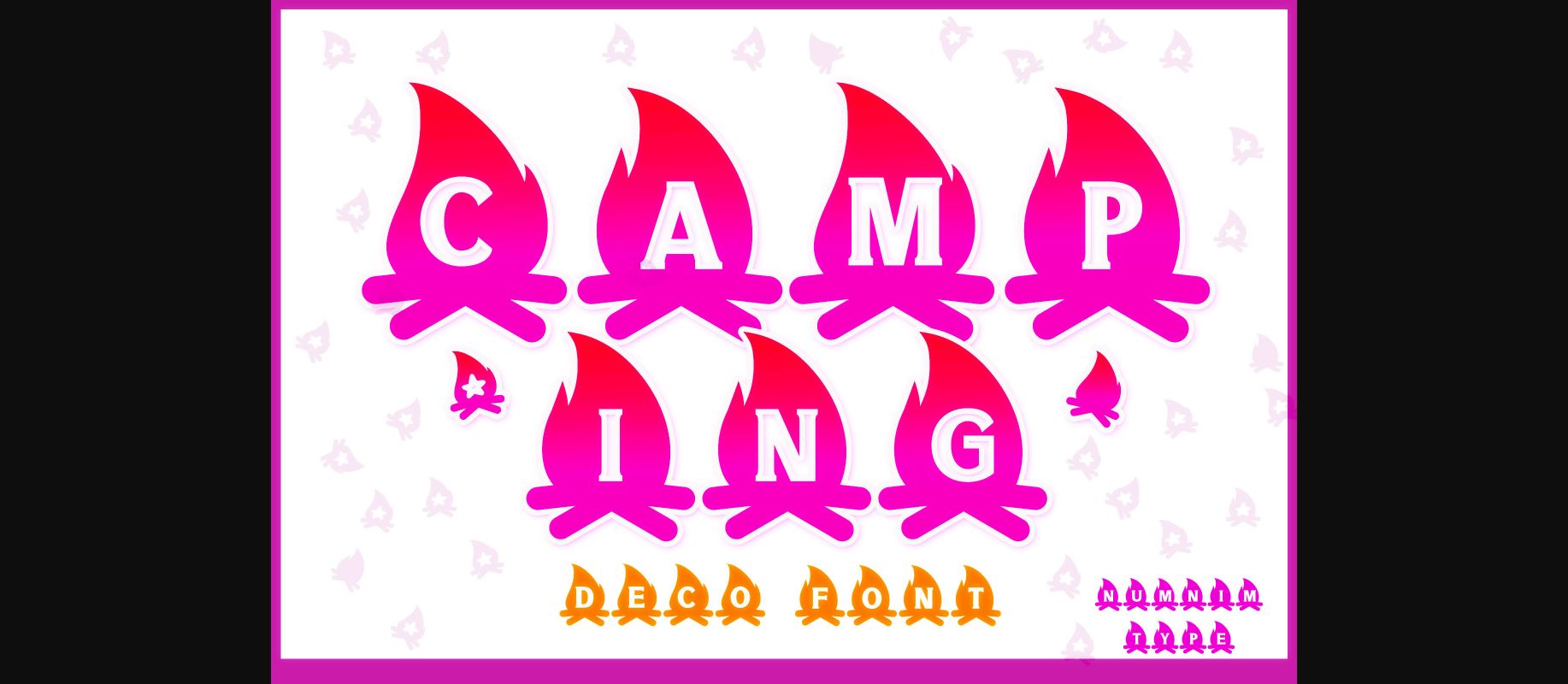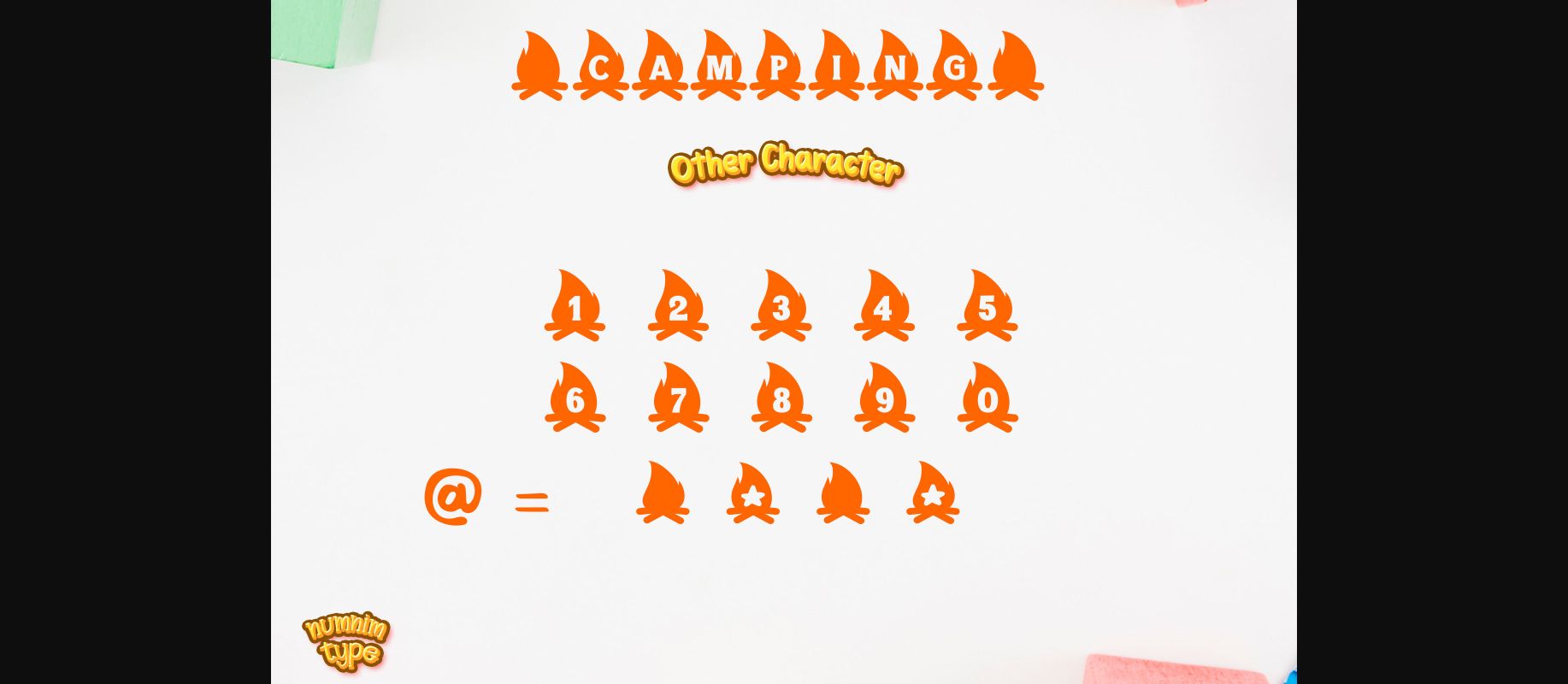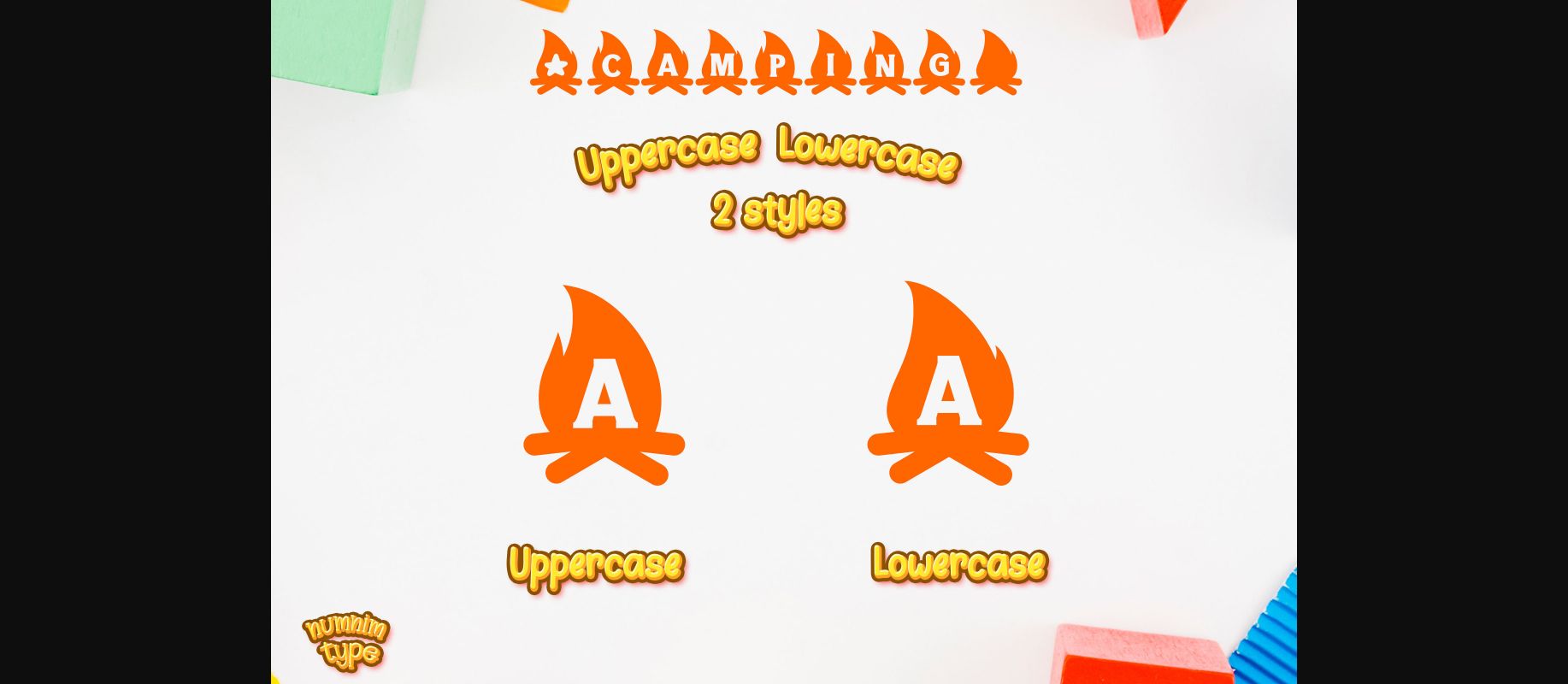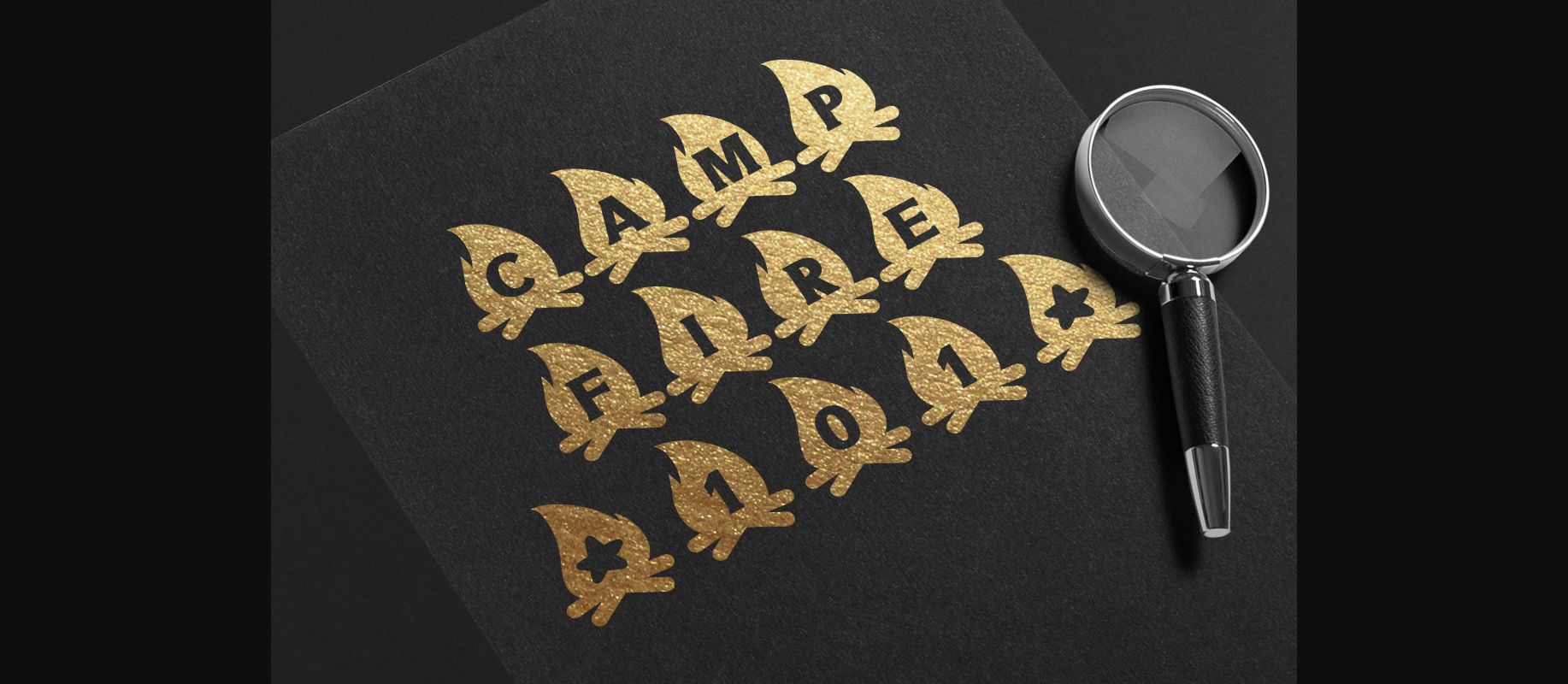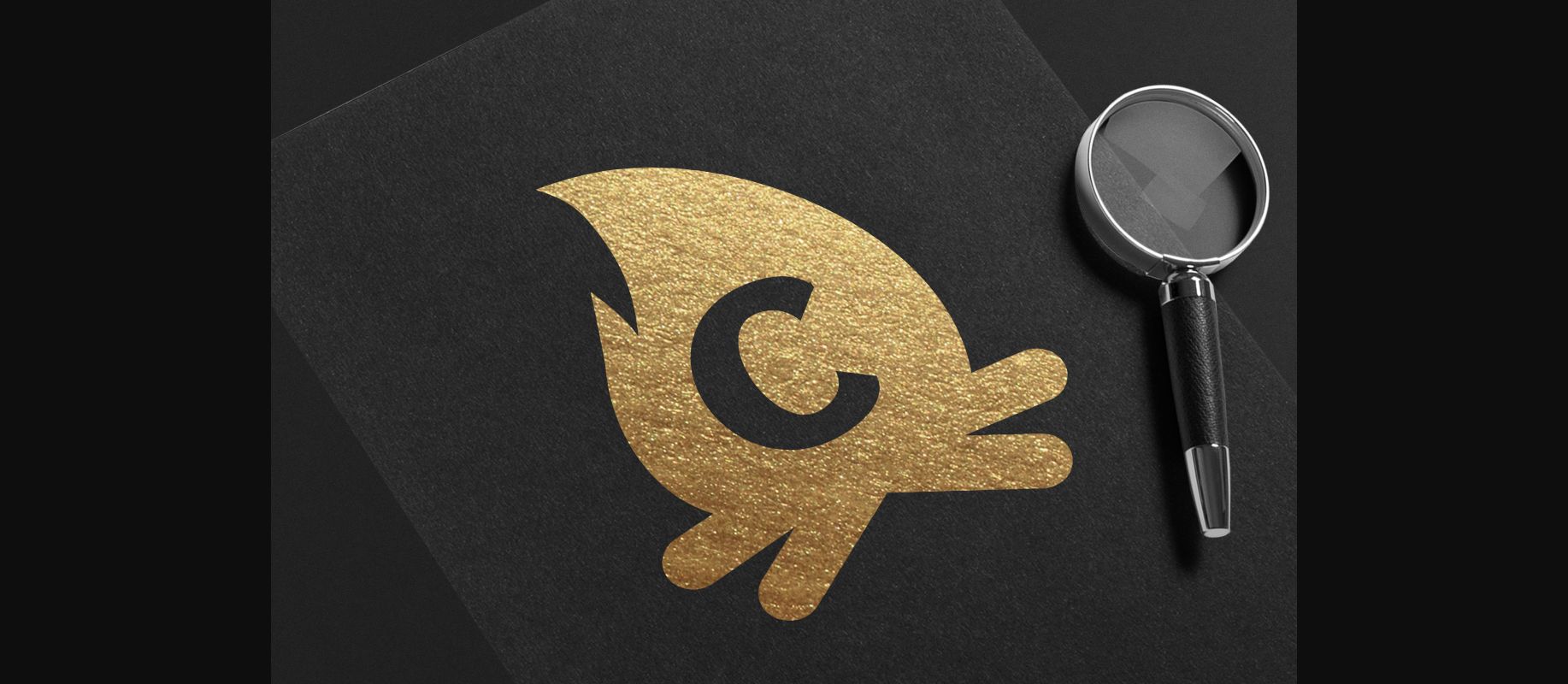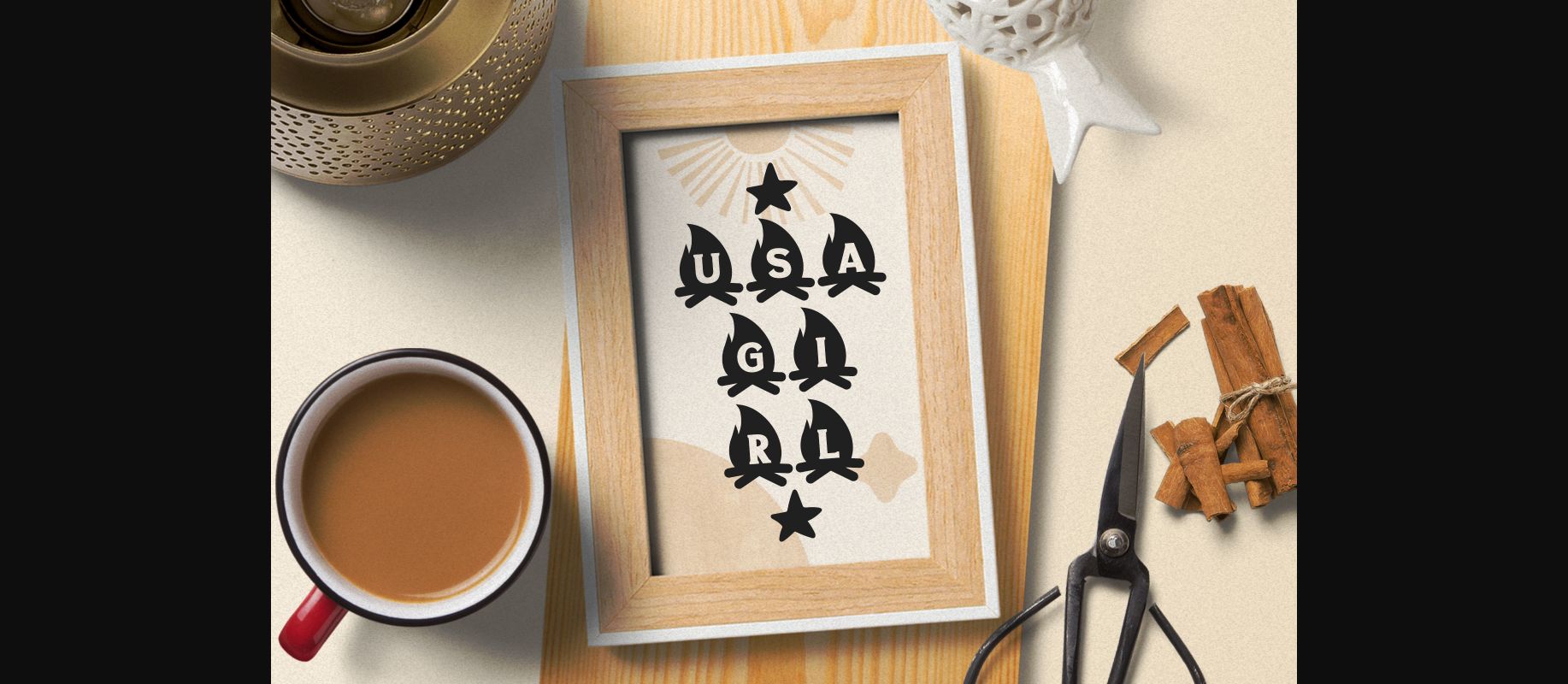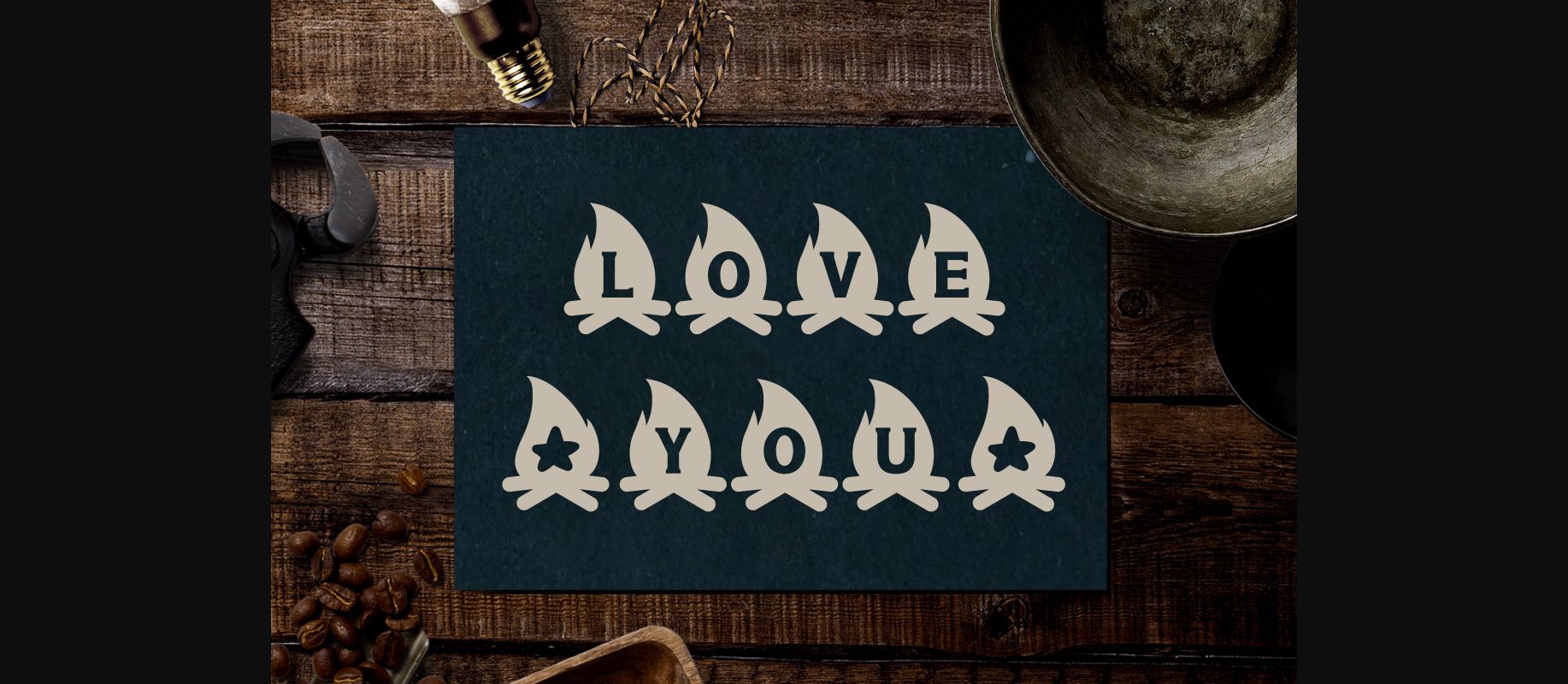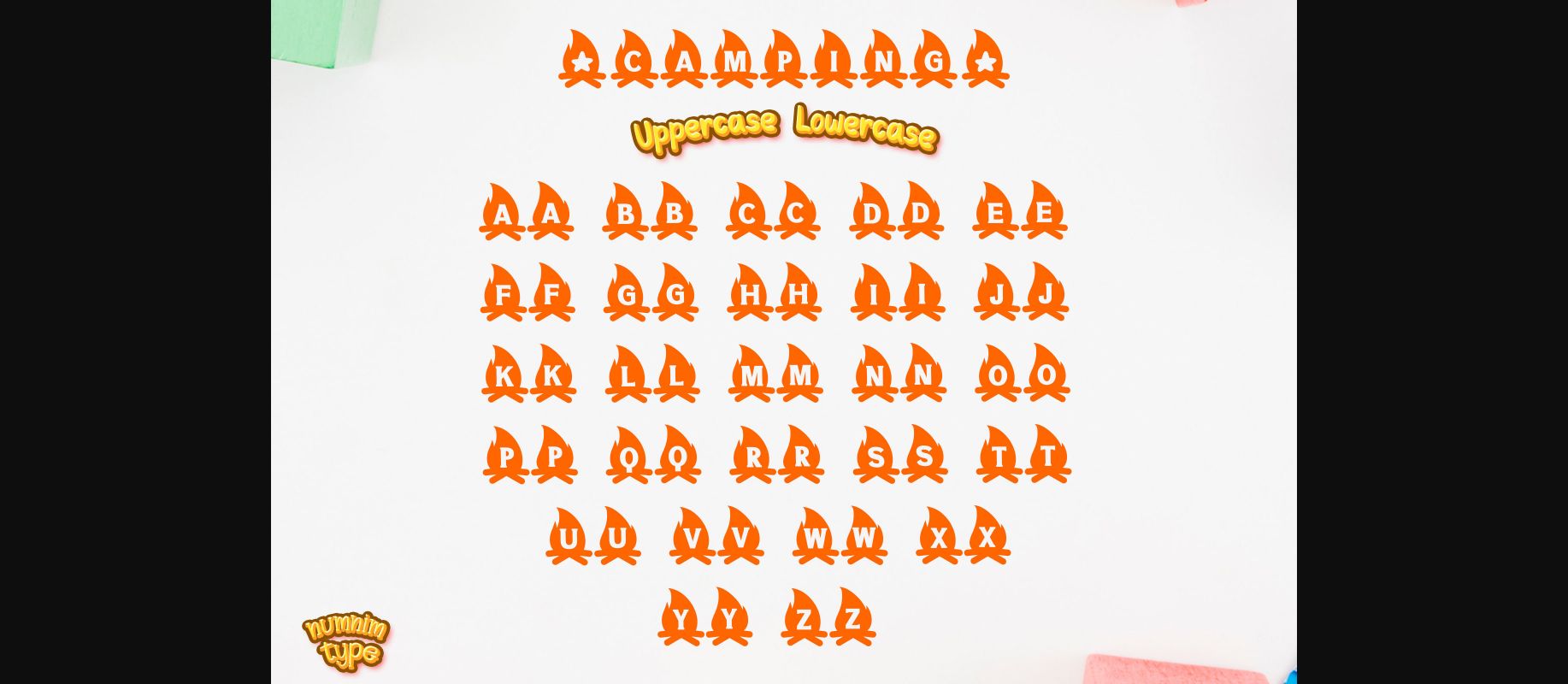
Camping Font
About Camping Font
Camping is a cute and uniquely crafted decorative display font. Its fun and playful characters make it the perfect font for stickers, mugs, t-shirts, ornaments, Camping’s event cards, and more! This font is PUA encoded which means you can access all glyphs and swashes with ease!